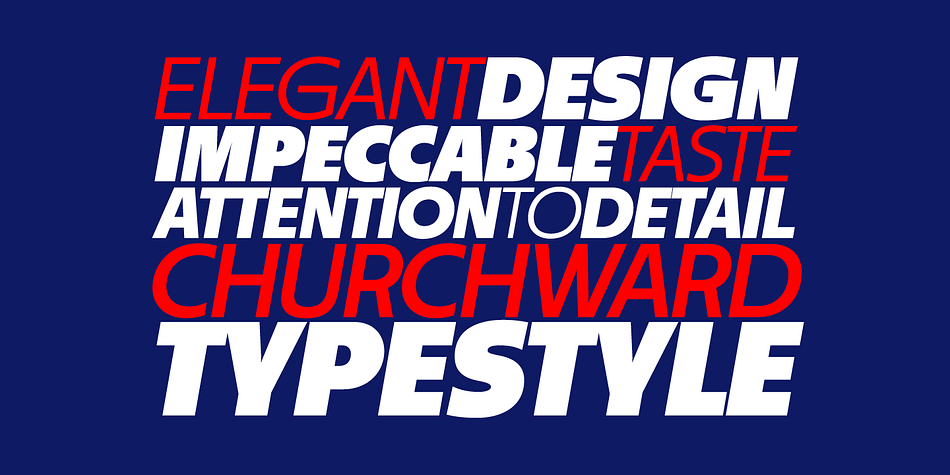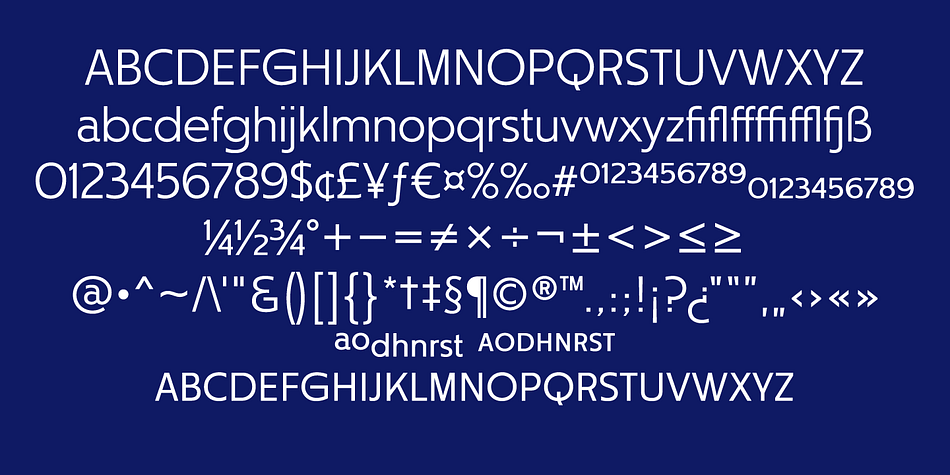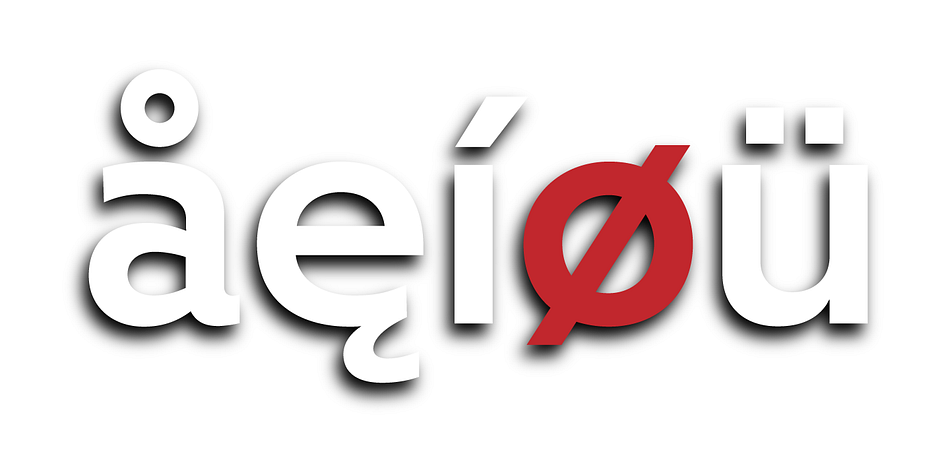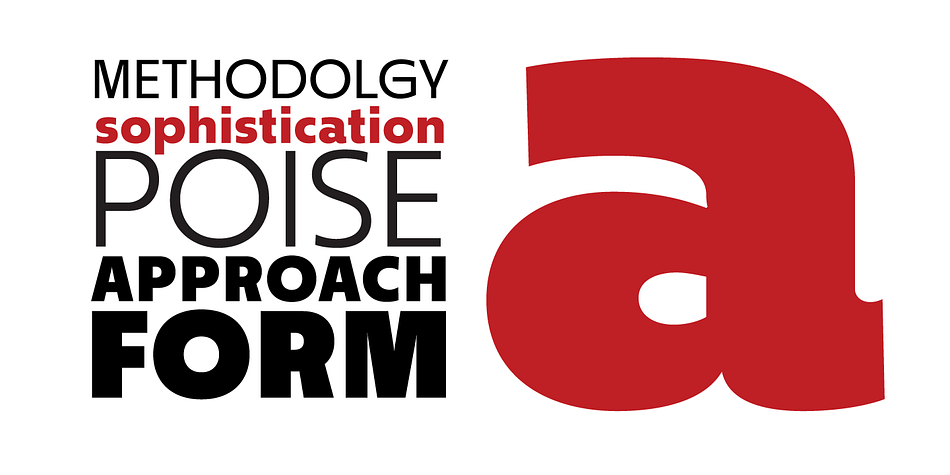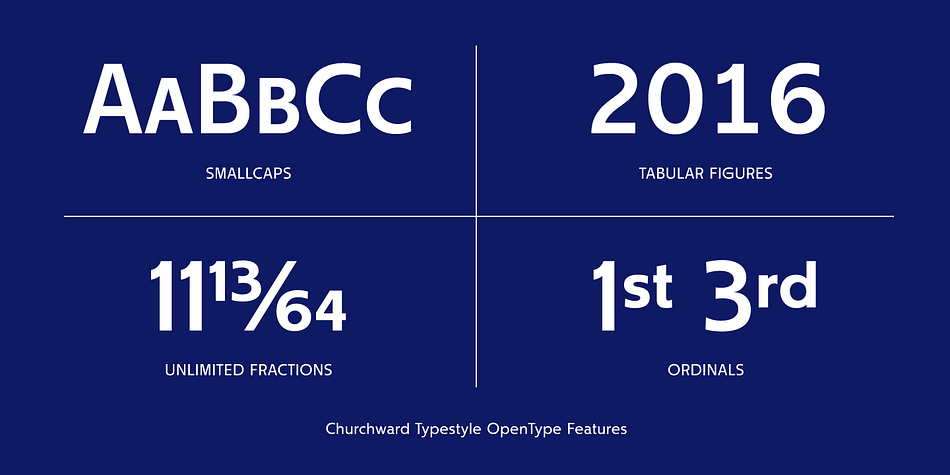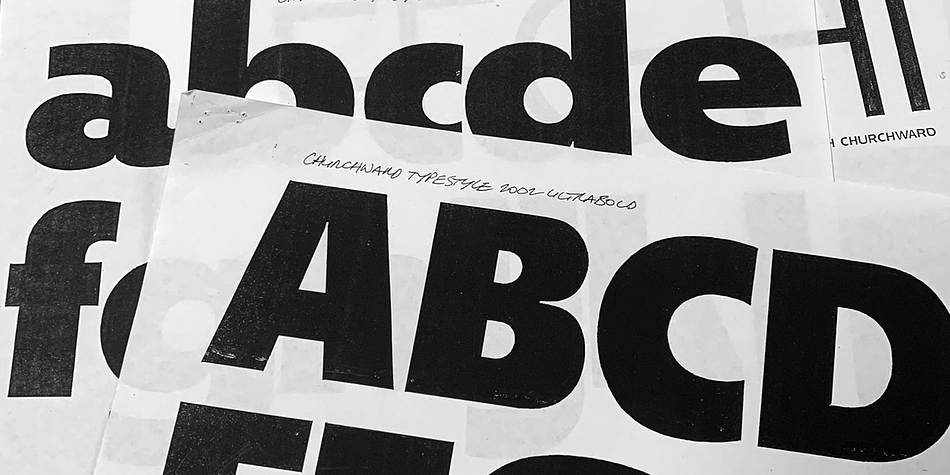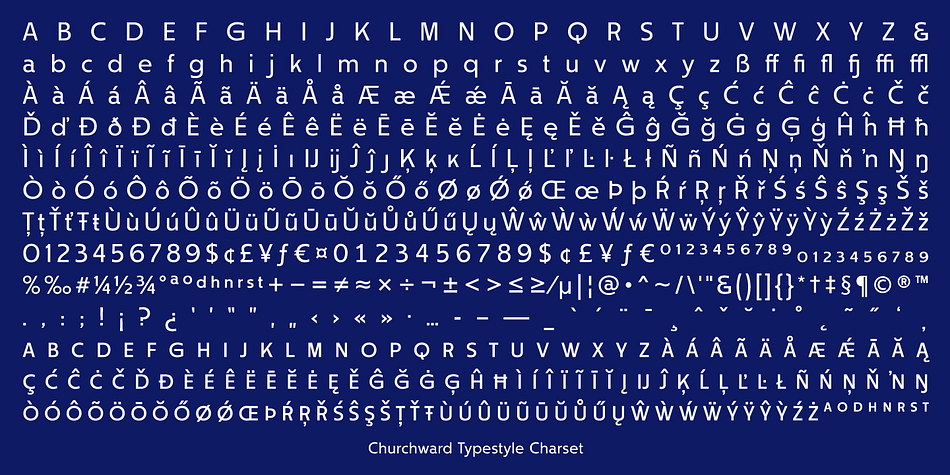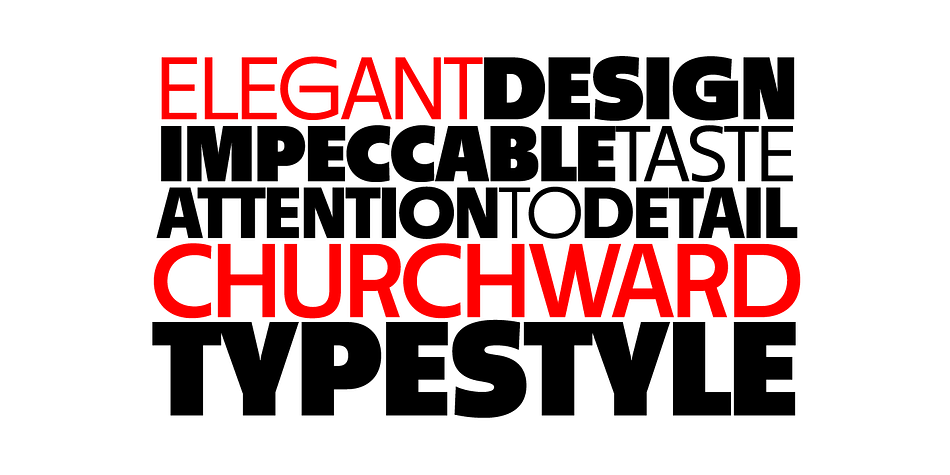
Designed by Joseph Churchward, Churchward Typestyle is a sans serif font family. This typeface has twelve styles and was published by BluHead Studio.
Churchward Typestyle is a clean sanserif font, originally designed as a photo font by Joseph Churchward back in 2002. Under exclusive license, BluHead Studio has digitized this typeface by using his original drawings. We added any missing glyphs, being careful to maintain the aesthetic that makes this a classic Churchward design. Joseph intended this to be a six weight family, so we digitized the Light and Ultra Bold weights and interpolated the middle four. We enhanced the functionality of the family by creating a complimentary set of small caps, as well as creating a 10 degree oblique of each weight, being careful to correct the slanted curve forms of the letters.
Churchward Typestyle is now an extensive 12 weight family, ranging in weights from Light to Ultra Bold, making it extremely useful in a broad range of design applications, from text and print, to display, posters and billboards. It’s sanserif design is clean and open, with a few of those characteristic Churchward goodies. Joseph loved his ink traps, so look for many of those! They especially become more apparent in the heavier weights.
All of the Churchward Typestyle fonts support the major Western European languages, and have OpenType features for ligatures, smallcaps, tabular figures, superiors, inferiors, fractions, and ordinals.